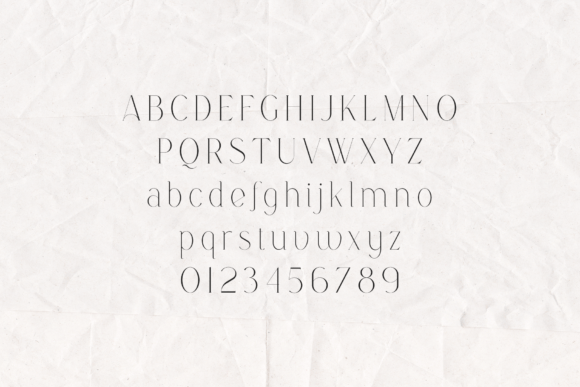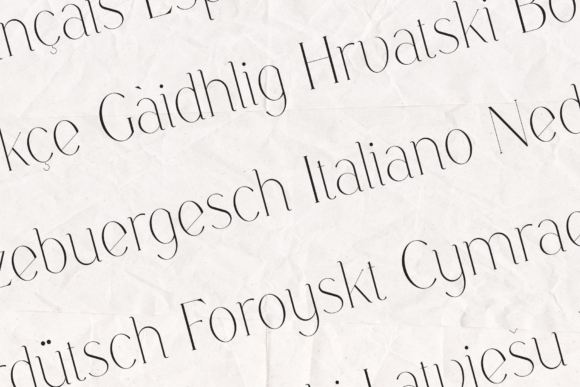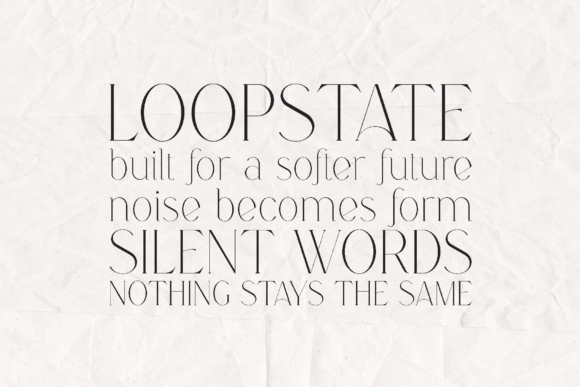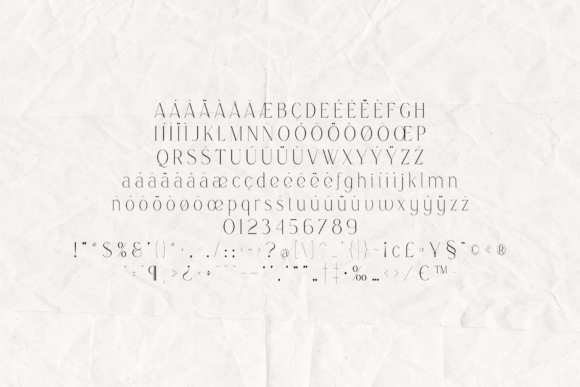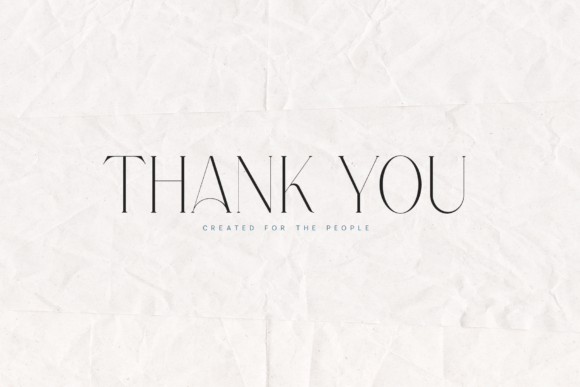
Boketto Font: Elevate Your Designs with Elegance and Sophistication
In the world of typography, a font can make or break a design. For designers and crafters seeking to add a touch of elegance and sophistication to their projects, Boketto Font is an exceptional choice. This modern serif display font, designed with delicate high-contrast strokes and refined letterforms, is perfect for creating visually stunning editorial layouts, magazine headlines, branding projects, and more.
What is Boketto Font?
Boketto is a carefully crafted font that boasts a refined modern structure and elegant serif styling. Its distinctive display typeface offers a clean and sophisticated look, ideal for modern editorial design. With its high-contrast strokes, Boketto adds a touch of luxury and refinement to any design project.
Key Features of Boketto Font
- Elegant Modern Serif Design: Boketto’s serif design is both modern and elegant, making it perfect for a wide range of design applications.
- Delicate High-Contrast Strokes: The font’s high-contrast strokes add a touch of sophistication and luxury to any design.
- Refined Letterforms: Each letterform in Boketto has been carefully crafted to ensure a refined and elegant look.
- Versatile: Boketto works beautifully for editorial layouts, magazine headlines, branding projects, logo design, luxury packaging, wedding stationery, modern typography compositions, posters, creative layouts, and sophisticated visual identities.
Use Cases for Boketto Font
Boketto’s versatility makes it an excellent choice for various design projects. Here are some use cases where Boketto truly shines:
- Editorial Layouts: Add a touch of elegance to your editorial layouts with Boketto’s refined serif design.
- Magazine Headlines: Create eye-catching headlines with Boketto’s high-contrast strokes and elegant letterforms.
- Branding Projects: Establish a sophisticated brand identity with Boketto’s distinctive display typeface.
- Logo Design: Create a luxurious logo with Boketto’s refined modern structure and elegant serif styling.
- Luxury Packaging: Elevate your luxury packaging designs with Boketto’s sophisticated typography.
- Wedding Stationery: Add a touch of elegance to your wedding stationery with Boketto’s refined letterforms and high-contrast strokes.
Why Choose Boketto Font?
With so many fonts available, why choose Boketto? Here are a few reasons why Boketto stands out:
- Unique Design: Boketto’s distinctive display typeface sets it apart from other fonts.
- High-Quality Design: Each letterform in Boketto has been carefully crafted to ensure a refined and elegant look.
- Versatility: Boketto works beautifully for a wide range of design applications.
- Elegance and Sophistication: Boketto adds a touch of luxury and refinement to any design project.
In conclusion, Boketto Font is an exceptional choice for designers and crafters seeking to add a touch of elegance and sophistication to their projects. With its refined modern structure, elegant serif styling, and delicate high-contrast strokes, Boketto is perfect for creating visually stunning editorial layouts, magazine headlines, branding projects, and more. Whether you’re looking to establish a sophisticated brand identity or create a luxurious logo, Boketto is an excellent choice.